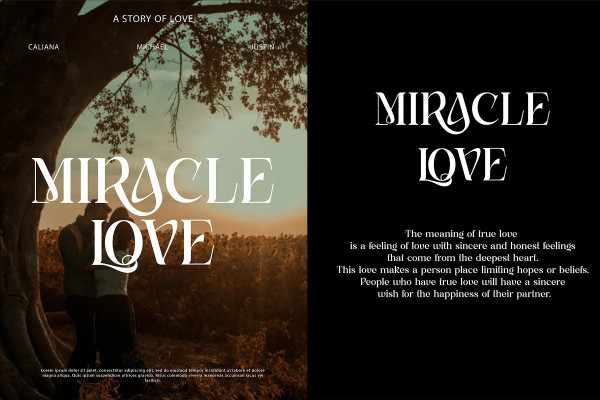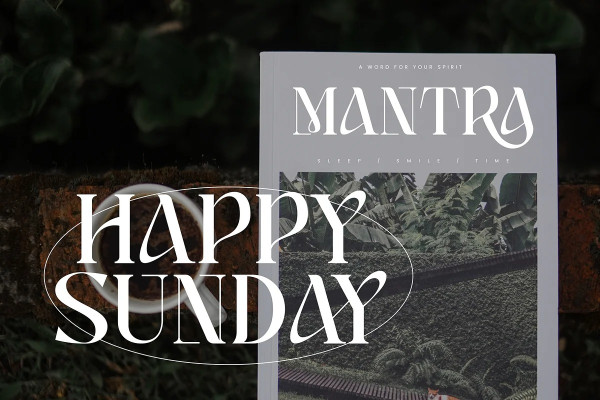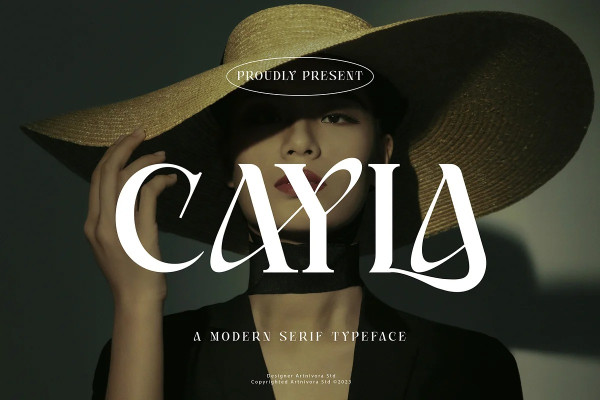
Cayla Font
Cayla Font, a simple and serif font. So perfect for you who needs a typeface for logo designs, magazine, social media, brochure, and many more.